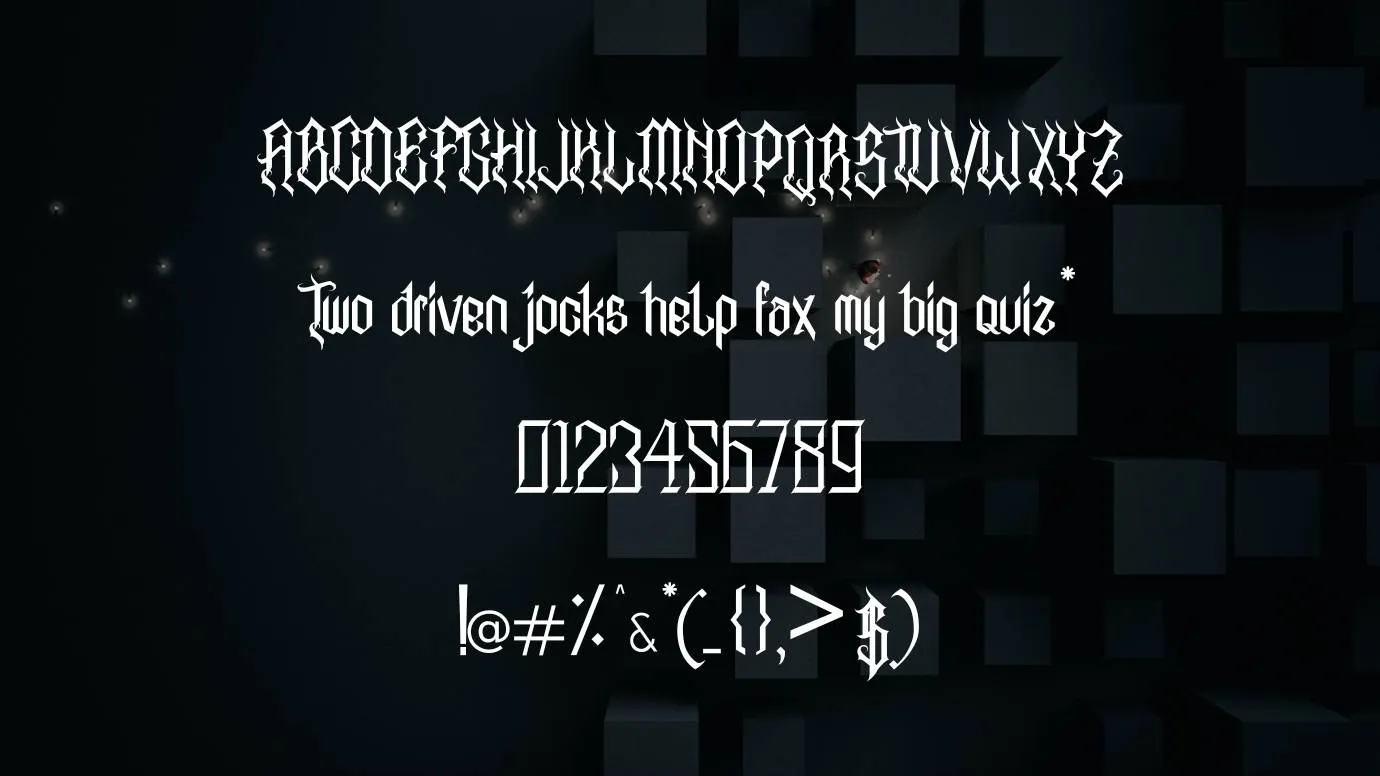
Alabasta Font is a fancy gothic typeface that has an elegant look. The designer of this typeface is Typotopia which is a famous font studio. This amazing typeface has blackletter glyphs along with 1024 units per em.
This font family has a Gothic alphabet, numerals, and special characters. It has a wide range of features that you can choose for various projects. This typeface has eye-catching glimpses and fantastic ligatures.
Alabasta Font